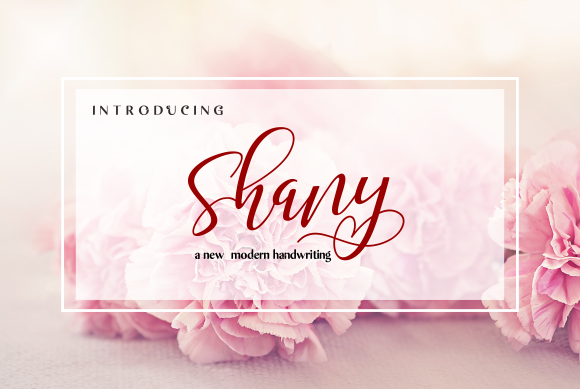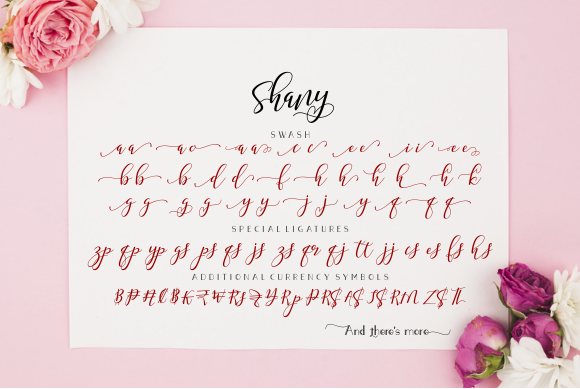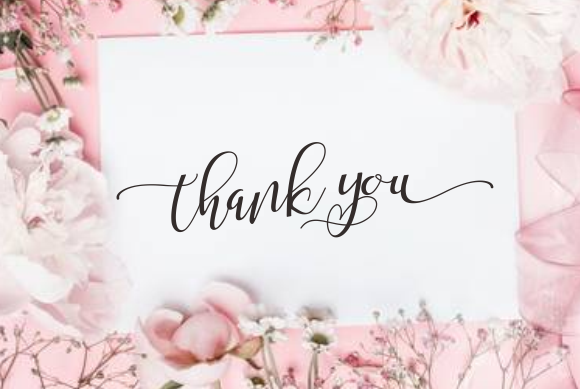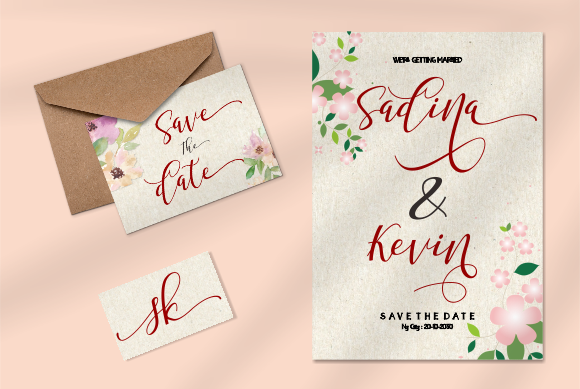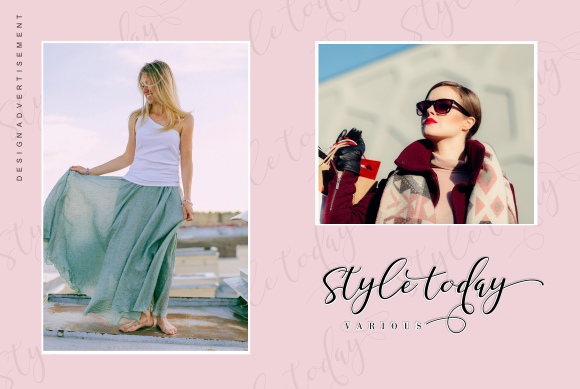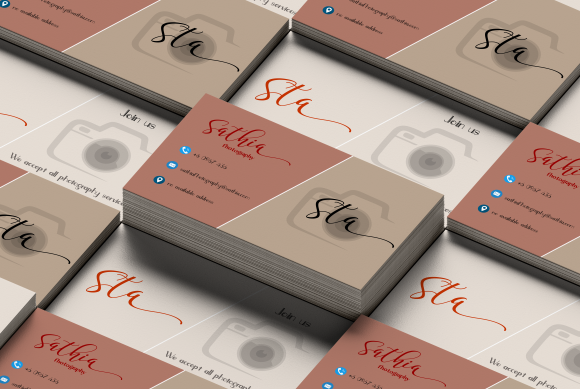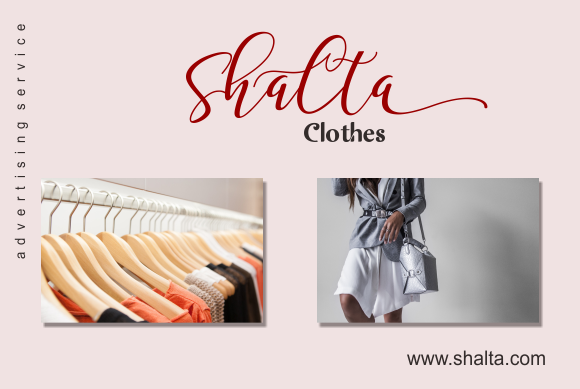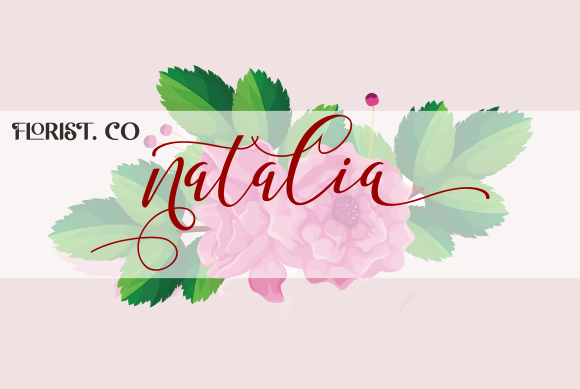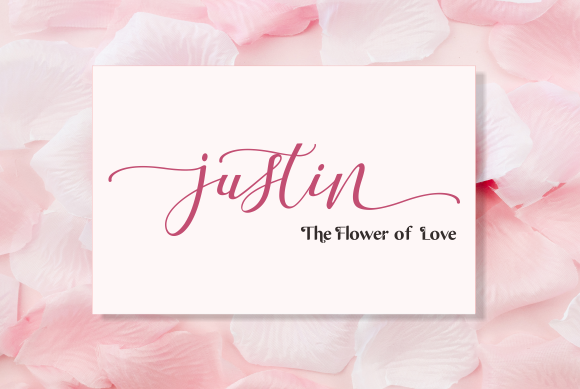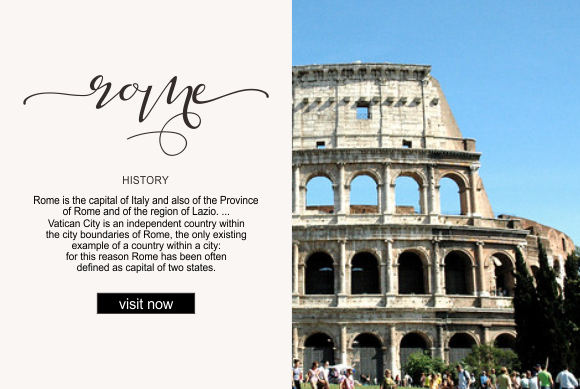
Shany Font
About Shany Font
Shany is a modern, handwritten typeface that gives designs a relaxed yet stylish appeal. This font is made up of irregular and flowy letters, and has a charming dancing look to it.